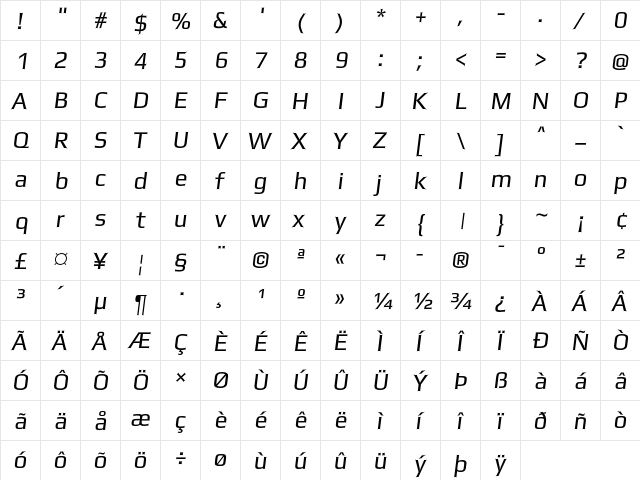
Gamestation Storm Oblique Italic
| Foundry | Jonas Hecksher, Playtype-types AS |
| Designer | Jonas Hecksher |
Design Context for Gamestation Storm Oblique Typeface
Gamestation Storm Oblique takes a measured approach to typography — its balanced proportions and neutral character make it a reliable workhorse for both digital and print work. Its italic angle brings a sense of urgency and motion to the letterforms.
Pro Tip: Use Gamestation Storm Oblique for emphasis, pull quotes, and subheadings where its slanted energy can add rhythm to the layout.